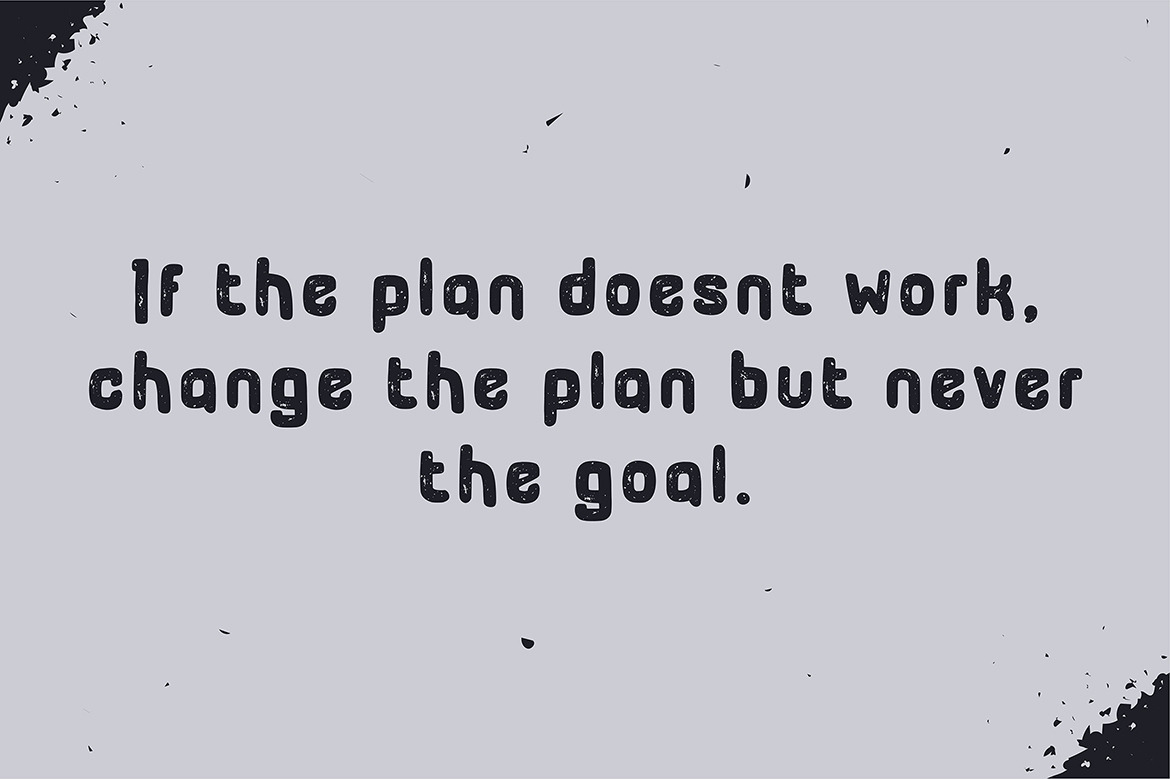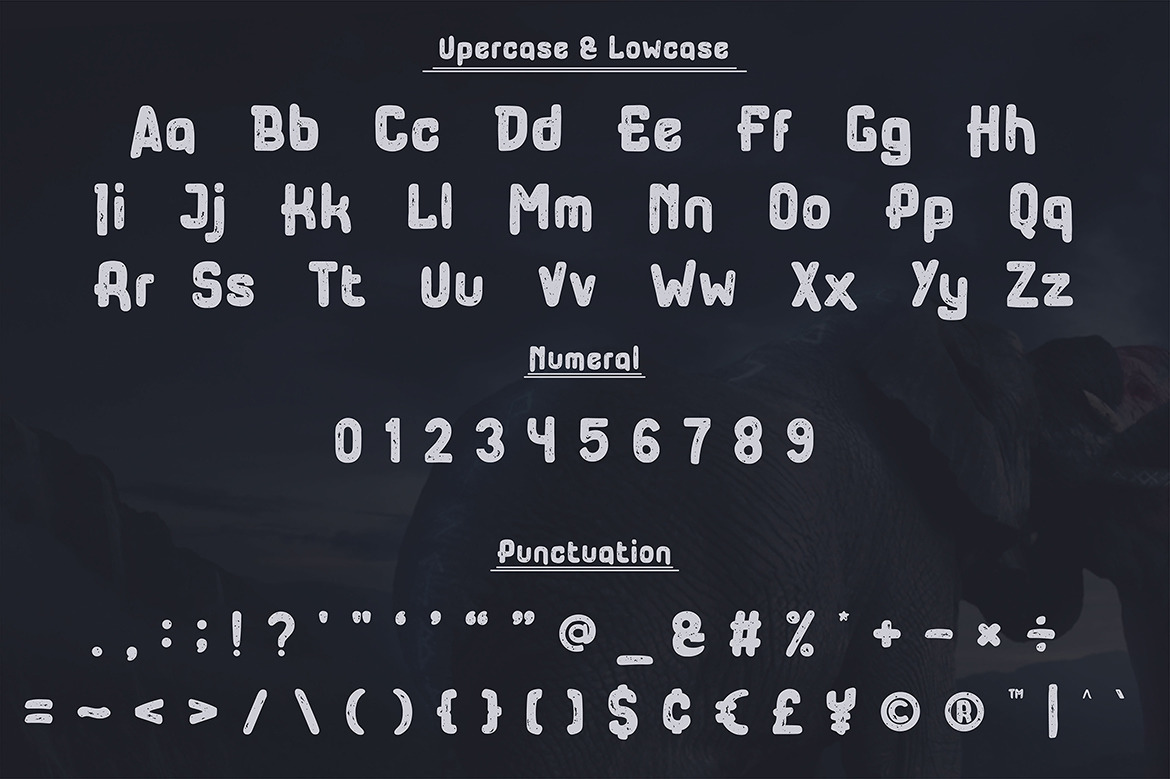
Talake - Handwriting Typeface
Talake is a thick and vintage display font with a grunge texture. Whether you’re using it for crafting, digital designing, presentations, or greeting card making, this font will take your designs to the next level!